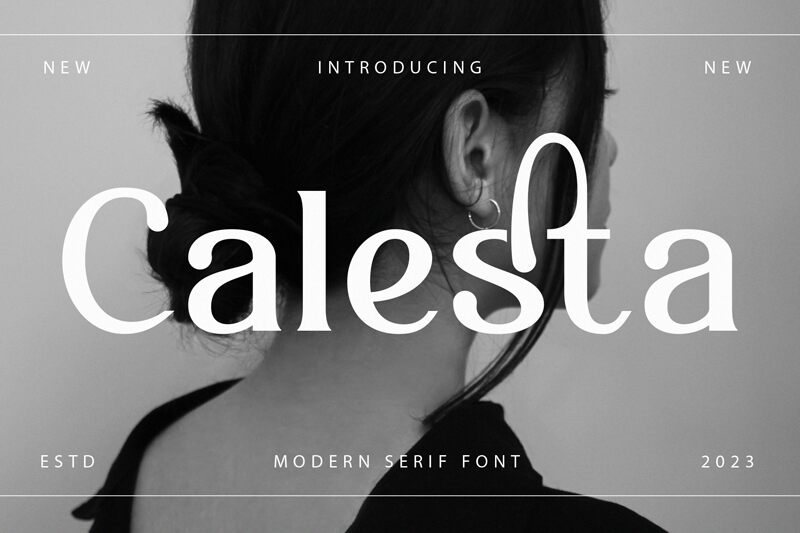
Calesta font family by Muflieart is a contemporary serif font family containing 2 font styles. This font family impresses with subtle sophistication and clean, structured character design. The designs are as stylish as they are versatile, and thus can be utilized by the users for almost any projects and designs.
From posters to branding designs, and from websites to magazines, Calesta will find haven in all editorial as well as digital design projects. The stylish letterforms also make it a great font for designs in the fashion industry or for designing branding designs for B2C companies.